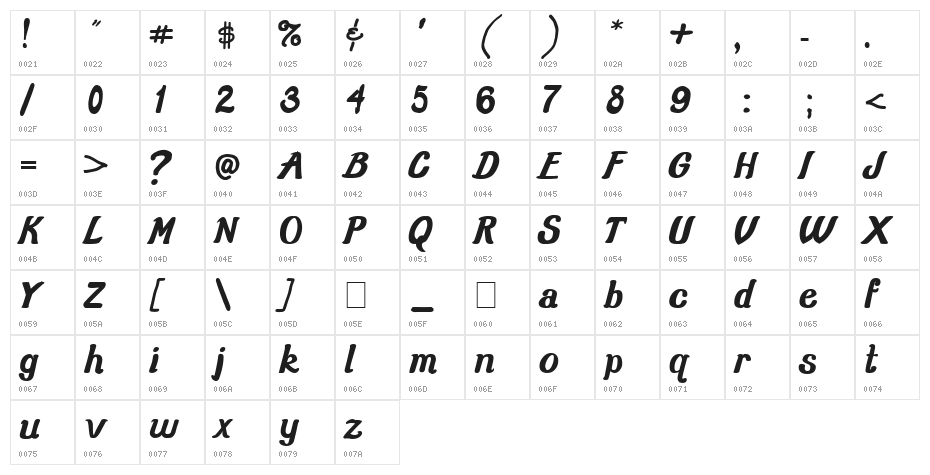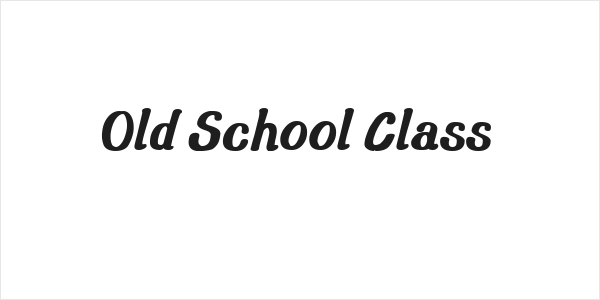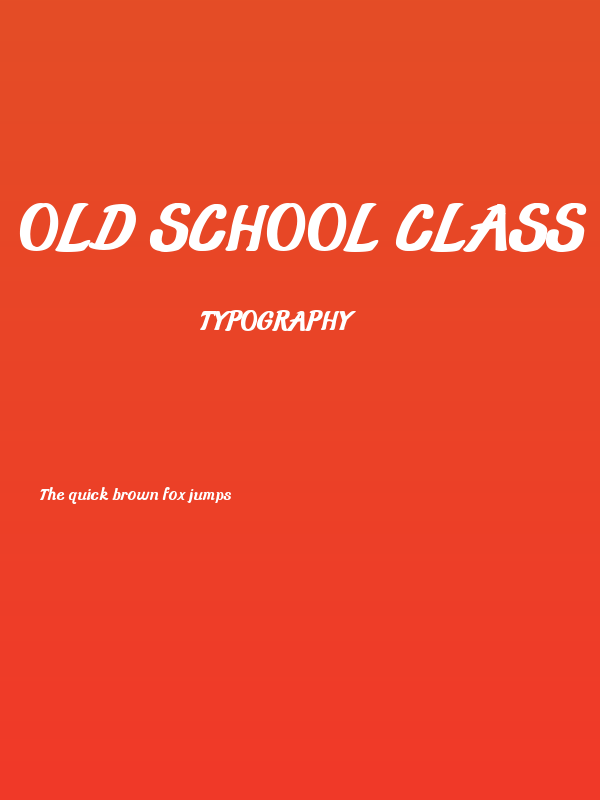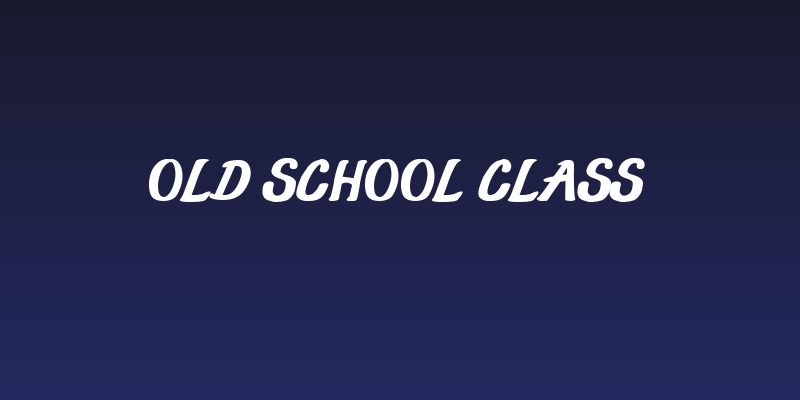
Old School Class Font
Old School Class Description
This font exudes a classic, vintage charm with its bold, flowing script style. The characters are elegantly crafted, featuring smooth curves and a slight slant that adds a dynamic feel. The uppercase letters are particularly striking, with a sense of grandeur and formality, while the lowercase letters maintain readability with their balanced proportions. The numerals are bold and clear, ensuring they stand out effectively. Special characters are thoughtfully designed, complementing the overall aesthetic. This font's design is reminiscent of traditional calligraphy, making it suitable for projects that require a touch of elegance and nostalgia.